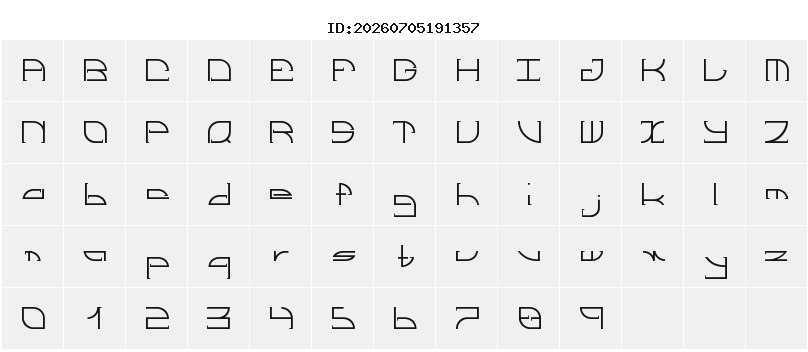
Dive Preview
• Font Name: Dive
• Full Font Name: Dive
About Dive.ttf
Dive.ttf is a modern, elegant sans-serif font designed for ultimate readability and visual harmony. Perfect for branding, headlines, web design, and print materials.